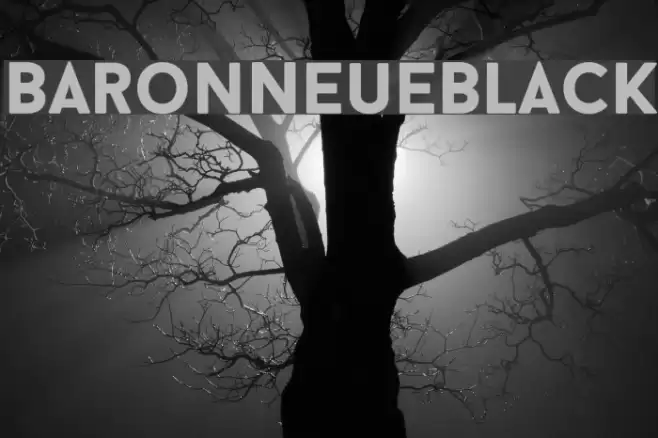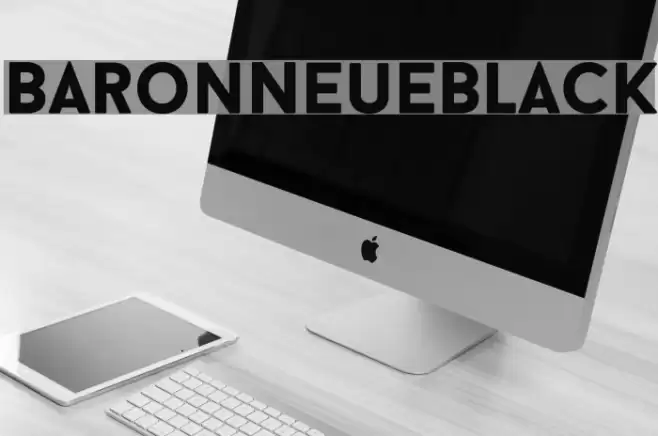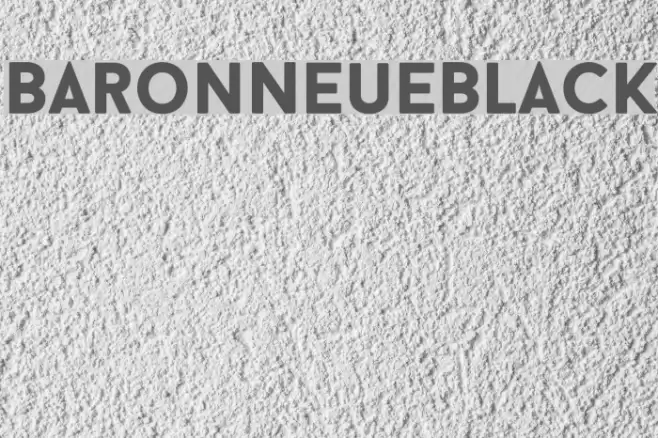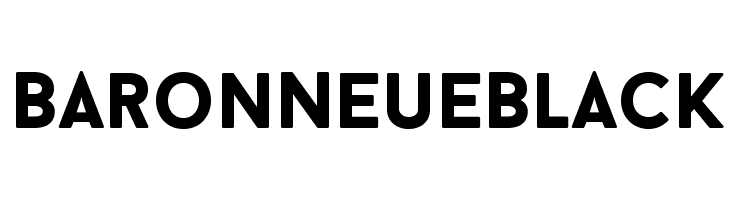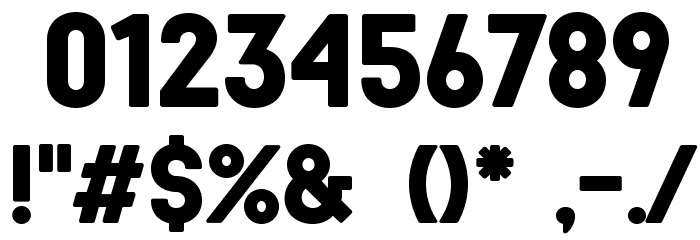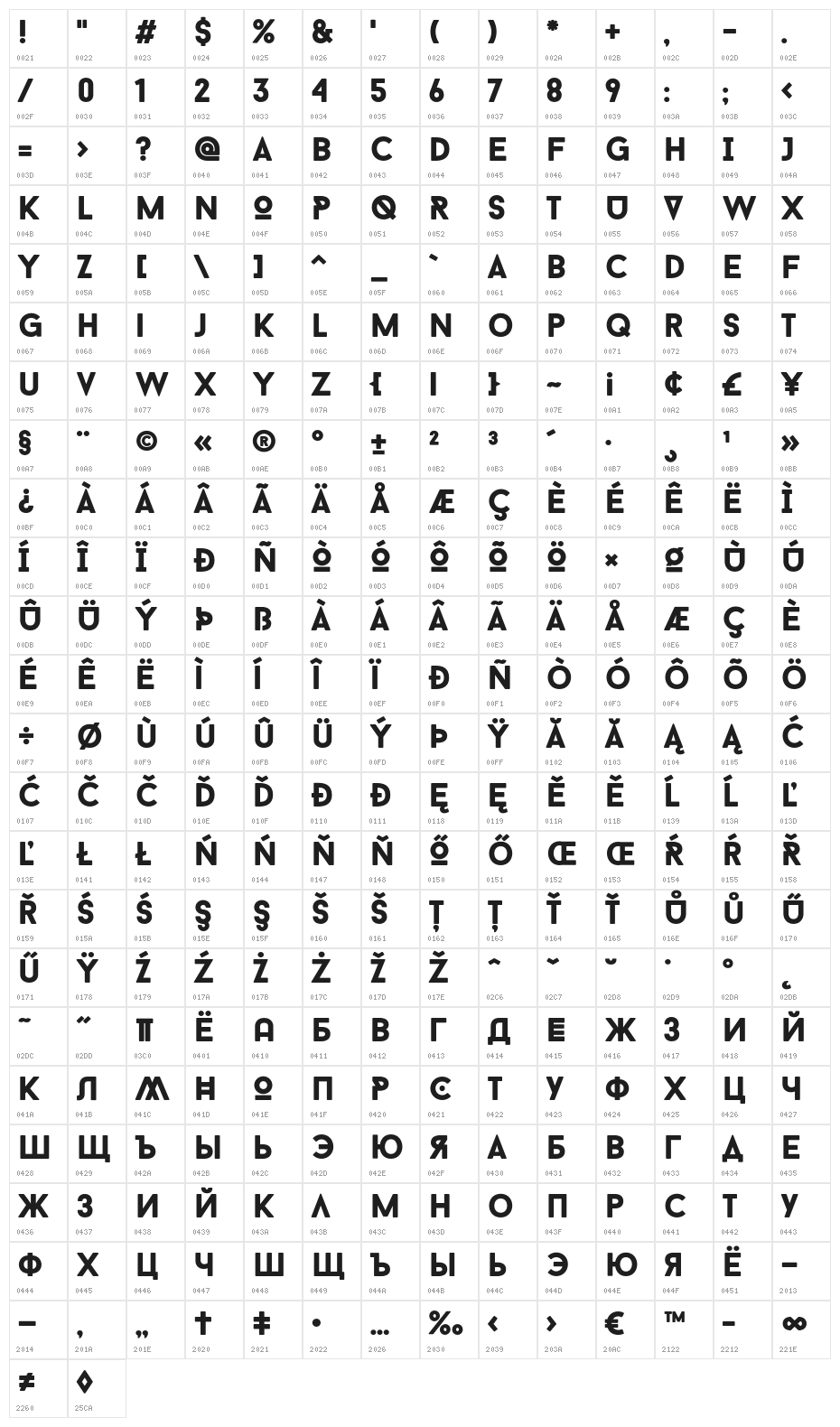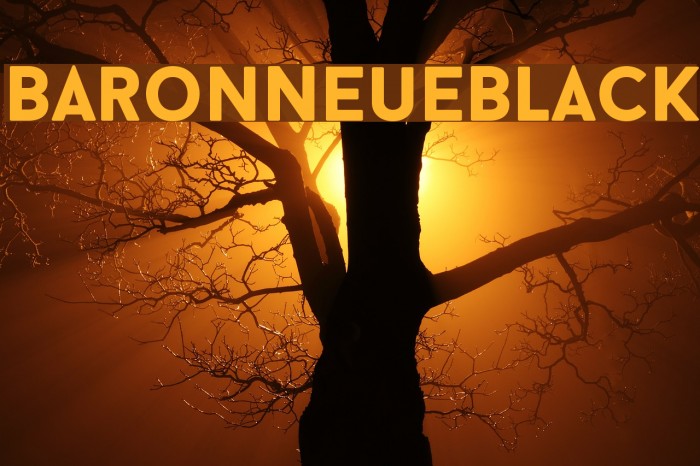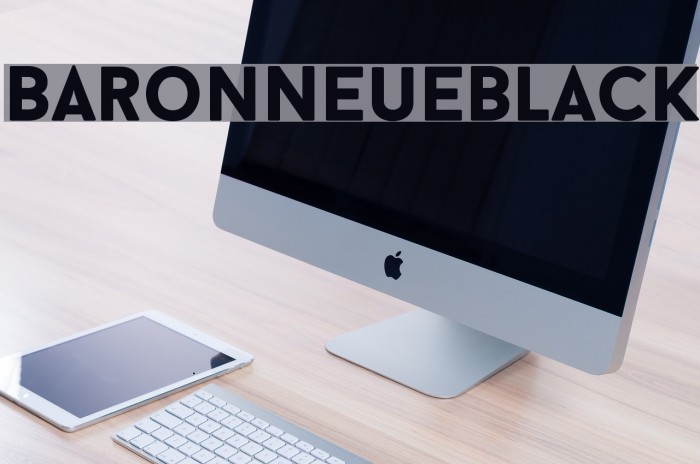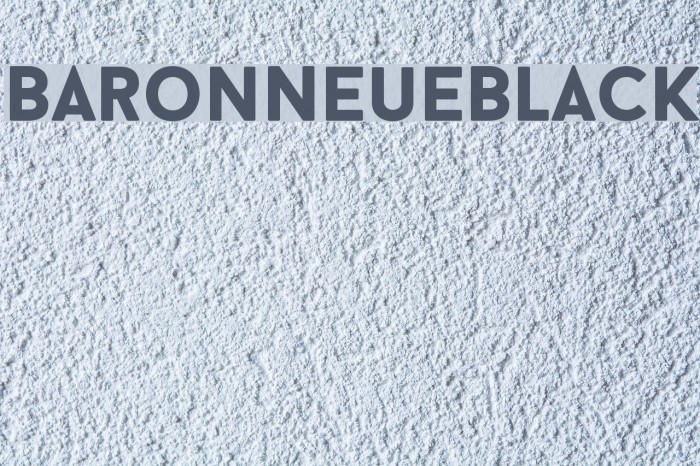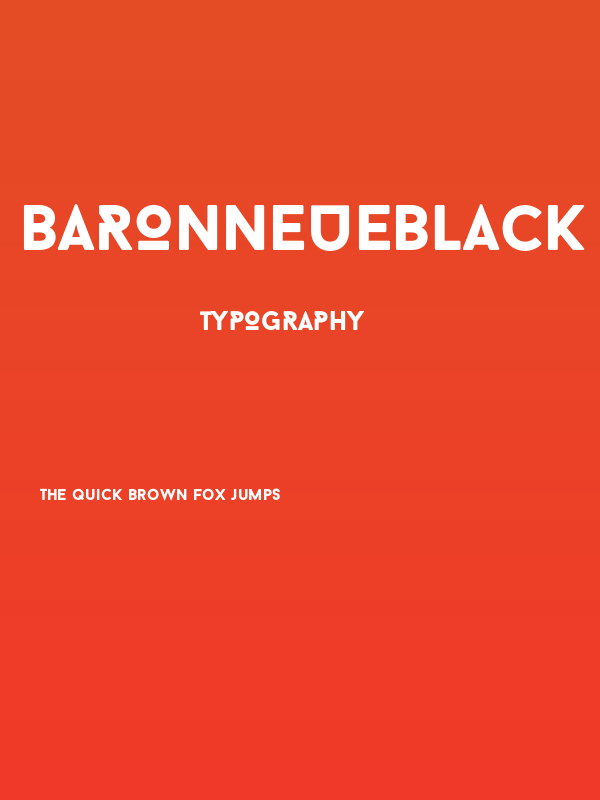
BaronNeueBlack Font
BaronNeueBlack Description
This font features a bold and striking design with a modern aesthetic. The characters are crafted with clean, geometric lines and a uniform stroke width, giving it a strong and impactful presence. The uppercase letters are particularly prominent, making them ideal for attention-grabbing headlines or titles. The numbers and special characters maintain the same boldness and clarity, ensuring consistency across all text elements. The font's simplicity and strength make it versatile for various design applications, from digital media to print.
A bold, modern font with clean, geometric lines and uniform stroke width from Uncategorized fonts.